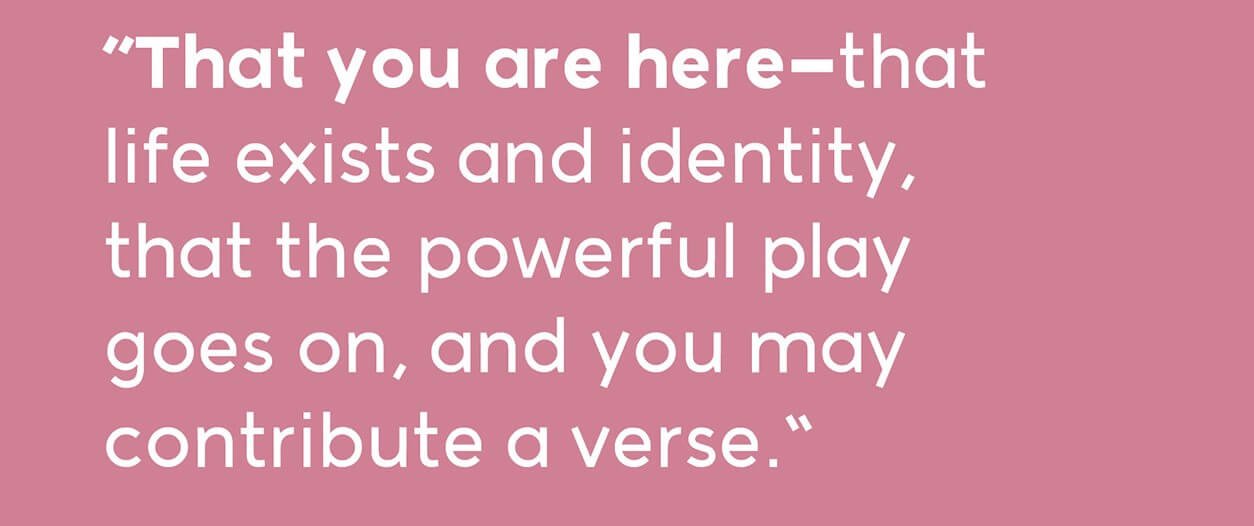
You can’t leave out a geometrical sans serif typeface. It’s going to make your work greater wonderful. Introducing kotori rose. It’s miles designed and shared via brian Jacob. Kotori Rose Typeface started as a tough comic strip of the capital letter ok
Due to its precise and elegant look, the first-rate typeface that is similar to space font that is an oddative majority of designers are utilizing it of their numerous initiatives. In case you are also a designer then don’t hesitate to apply it on your ongoing projects.
With the help of colors, pics, and other visual items, he or she will be able to brilliantly layout a duplicate that communicates the purpose and meaning, however, the textual content proves to be a nail within the coffin for a refined design.
You can create a visible context with the portraits, but lacking out on fonts can be the most sizable font that is similar to yazısı font and highfield sin in speaking exactly what you ought to portray.
That content material typeface is perfect for a few, amazing endeavors. This article fashion is offered in and every other programming. Like emblems setup, magnetic cards, and many others.